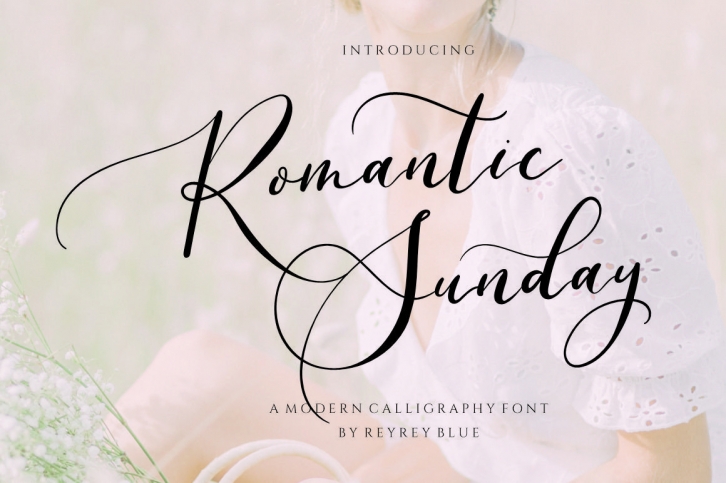
Romantic Sunday is a great font that was designed by Reyreyblue. Imagine the amount of combinations you can create using this font! The archive is 2.6 MB and it was released on July 28, 2021. Romantic Sunday looks beautiful on wedding invitations, greeting cards, logos, posters, labels, t-shirt designs, logos, business cards and is perfect for use in ink or watercolor works, fashion, magazines, packaging and food menus, children's books and more!